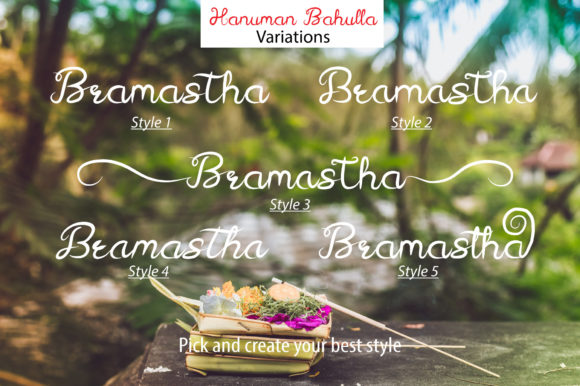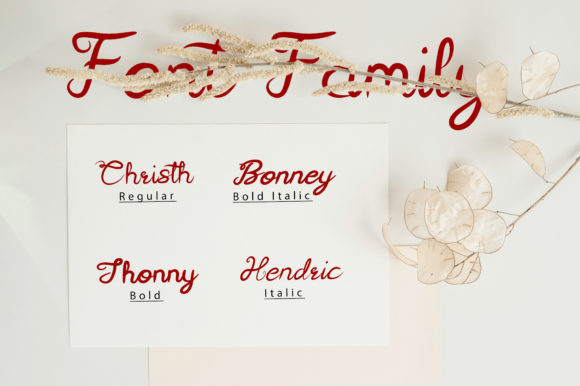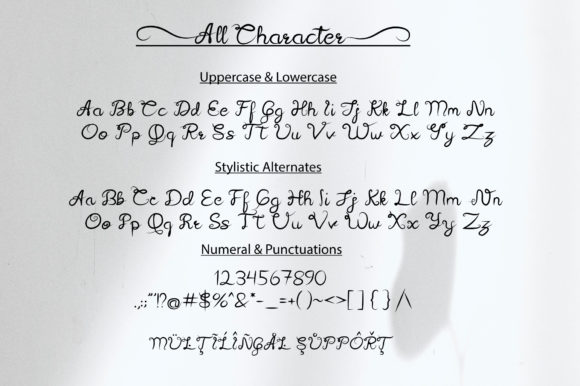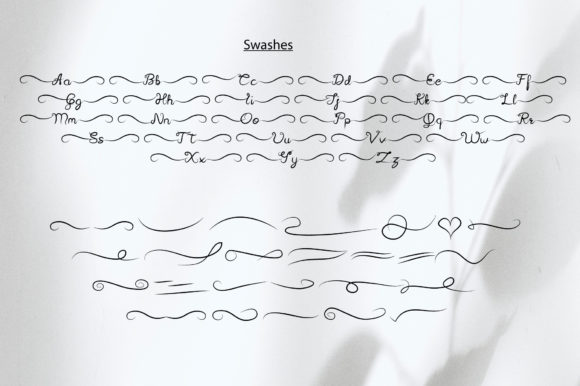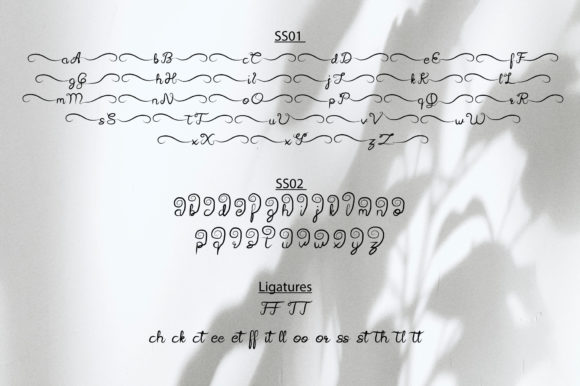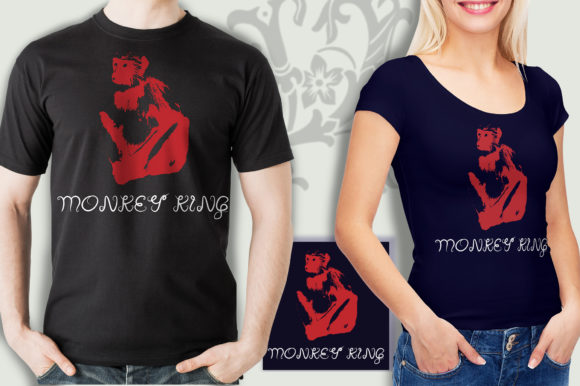
Introducing Hanuman Bahulla Font: A Timeless Vintage Script for Fashion and Editorial Designs
In the realm of typography, fonts play a pivotal role in bringing creativity and character to designs. For designers and crafters seeking a unique and elegant touch, the Hanuman Bahulla Font stands out as an exceptional choice. This beautiful, well-balanced, and vintage-styled script font is crafted to add a touch of sophistication and charm to fashion branding, editorial designs, and a myriad of creative projects.
Characteristics of Hanuman Bahulla Font
Hanuman Bahulla Font is defined by its smooth curves and classic appeal, reminiscent of traditional script typography. Its well-balanced design ensures that it is not only aesthetically pleasing but also highly legible, making it suitable for a wide range of applications. Whether you’re working on a fashion brand’s logo, an editorial piece, or any project that demands a touch of elegance, Hanuman Bahulla is designed to impress.
One of the standout features of the Hanuman Bahulla Font is its PUA (Private Use Area) encoding. This means that users can access all the glyphs and swashes easily, offering a broad range of creative possibilities. PUA encoding allows designers to unlock the full potential of the font, making it simple to incorporate intricate details and unique flourishes into their work. This feature is particularly beneficial for those looking to add a personalized touch to their designs without the hassle of complicated font management.
Ideal for Fashion Branding and Editorial Designs
Fashion branding and editorial designs often require fonts that convey a sense of style, sophistication, and sometimes, a hint of nostalgia. Hanuman Bahulla Font fits the bill perfectly. Its vintage script style brings a level of class and refinement that can elevate any design from ordinary to extraordinary. For fashion brands looking to establish a strong visual identity, this font offers a distinctive and memorable aesthetic. Similarly, for editorial projects, it provides a touch of elegance that can make articles, magazines, and publications stand out.
Versatility in Creative Projects
Beyond fashion branding and editorial designs, the versatility of Hanuman Bahulla Font makes it suitable for a variety of creative projects. It can be used in:
- Logos and Branding: Create a lasting impression with a unique and stylish logo.
- Invitations and Stationery: Add a touch of elegance to wedding invitations, business cards, and letterheads.
- Packaging: Stand out on store shelves with beautifully designed product packaging.
- Digital Media: Enhance your website, social media posts, and digital advertisements with a sophisticated font.
Why Choose Hanuman Bahulla Font?
Choosing Hanuman Bahulla Font for your design projects comes with several advantages:
- Unique Style: Offers a distinctive vintage script style that sets it apart from more common fonts.
- Ease of Use: PUA encoding makes it easy to access and use a wide range of glyphs and swashes.
- High Legibility: Well-balanced design ensures that your message is conveyed clearly and effectively.
- Versatility: Suitable for a broad spectrum of design projects, from fashion to digital media.
Hanuman Bahulla Font is a remarkable addition to the world of typography, offering designers and crafters a beautiful, vintage-styled script font that brings elegance and sophistication to any project. Its smooth curves, PUA encoding, and versatility make it an ideal choice for fashion branding, editorial designs, and a multitude of creative endeavors. By incorporating Hanuman Bahulla into your design toolkit, you’re equipped to create stunning, memorable designs that leave a lasting impression.